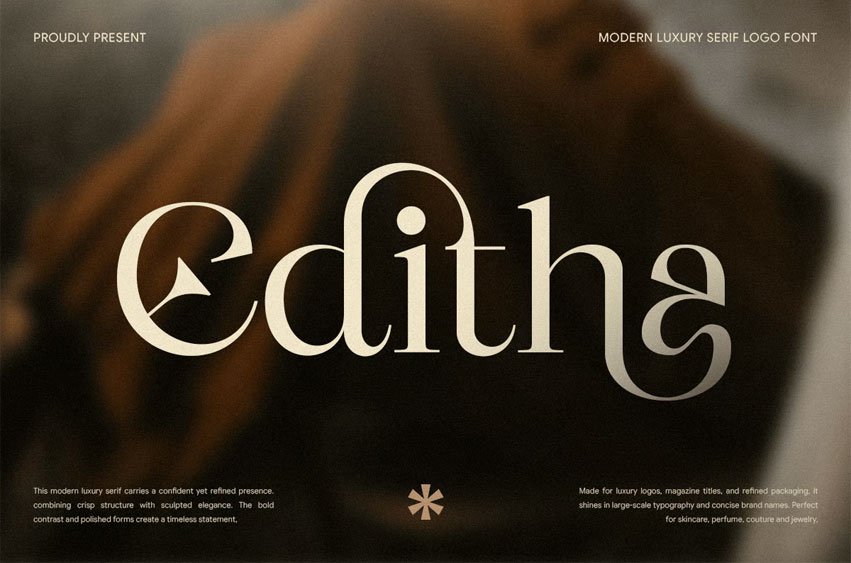
Editha Font
Editha Font Modern Luxury Serif Logo Font Editha is a modern luxury serif logo font designed to express elegance, sophistication, and premium brand identity. With refined serif details, balanced proportions, and graceful curves, Editha is perfect for luxury logos, fashion branding, beauty products, editorials, packaging, and high-end visual designs.
Blending timeless serif tradition with modern minimal aesthetics, Editha offers excellent readability while maintaining a classy and exclusive visual presence. Its elegant character makes it ideal for fashion houses, boutique brands, jewelry labels, lifestyle products, and designers seeking a refined serif logo font for premium branding.
Editha – Modern Luxury Serif Logo Font Features:
• Elegant modern serif style with luxury character
• Ideal for logos, branding, editorials, and packaging
• Refined contrast with stylish letterforms
• Perfect for premium, classy, and sophisticated visual identities
Elevate your brand presence with Editha – the modern luxury serif logo font crafted for elegant expression.